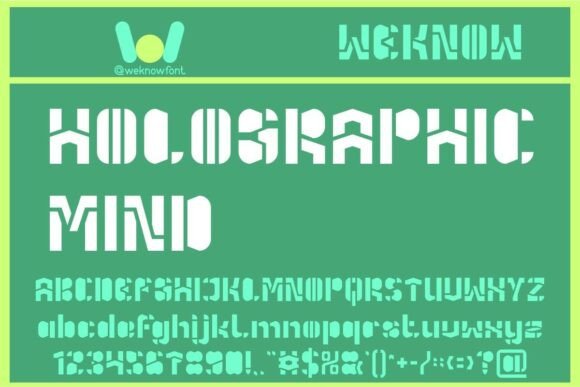
Introducing Holographic Mind Font: Elevate Your Designs to Futuristic Heights
In the realm of typography, few fonts manage to capture the essence of a futuristic universe as effectively as the Holographic Mind Font. This cutting-edge, techno-science fiction, cyberpunk-inspired typeface is designed to transport your designs to a world of innovation and sleek sophistication. With its stencil geometric style, Holographic Mind exudes a distinct elegance that is perfect for headlines, corporate branding, and creative projects that demand a touch of the extraordinary.
The Futuristic Appeal of Holographic Mind
The Holographic Mind Font is more than just a typographic choice; it’s an experience. Its futuristic design elements evoke the aesthetic of high-tech sci-fi, making it an ideal choice for projects that require a forward-thinking approach. Whether you’re working on a blockbuster movie poster, a dynamic website design, or a stylish music band’s logo, Holographic Mind can help you achieve a look that’s both modern and mesmerizing.
Versatility at Its Best
One of the standout features of the Holographic Mind Font is its versatility. This font isn’t limited to just one or two specific uses; rather, it can be seamlessly integrated into a wide range of projects. Imagine using it for:
- Empowering corporate brands with a strong, forward-thinking identity
- Creating eye-catching posters for movies, events, or product launches
- Designing innovative logos for tech startups, music bands, or fashion labels
- Adding a touch of futurism to comic books, gaming, or digital media
- Elevating social media presence with standout Instagram posts or YouTube intros
Key Features of Holographic Mind Font
So, what makes the Holographic Mind Font so unique? Here are a few key features that set it apart:
- Stencil Geometric Style: The font’s stencil geometric style gives it a clean, precise look that’s both elegant and edgy.
- Cyberpunk-Inspired: Drawing from the world of cyberpunk, Holographic Mind captures the essence of a high-tech, futuristic universe.
- Cutting-Edge Aesthetic: With its sleek lines and modern design, this font is perfect for projects that demand a cutting-edge aesthetic.
- High Versatility: Whether you’re working on digital media, print materials, or game design, Holographic Mind can adapt to any creative project.
Enhance Your Brand with Holographic Mind
In today’s competitive market, branding is everything. A well-designed font can make all the difference in how your brand is perceived by your audience. With Holographic Mind, you can instantly elevate your brand’s image and communicate a sense of innovation and forward-thinking.
Imagine your brand’s logo, advertisements, and marketing materials all featuring the Holographic Mind Font. The consistency and cohesion of your brand’s visual identity will be instantly recognizable, setting you apart from competitors and making your brand more memorable.
Applications of Holographic Mind Font
The applications of the Holographic Mind Font are endless. Here are a few ideas to get you started:
- Movie and TV Posters: Create eye-catching posters for blockbuster movies or TV shows with a futuristic or sci-fi theme.
- Website Design: Use Holographic Mind to create dynamic and engaging website headers, buttons, or other UI elements.
- Music and Gaming: Design logos, album covers, or game titles that capture the essence of a futuristic, high-tech world.
- Fashion and Beauty: Add a touch of innovation to fashion labels, beauty products, or lifestyle brands.
- Social Media: Stand out on social media platforms like Instagram, YouTube, or TikTok with bold, futuristic text.
Tips for Using Holographic Mind Font
To get the most out of the Holographic Mind Font, here are a few tips to keep in mind:
- Pair with Complementary Fonts: Combine Holographic Mind with simpler fonts to create contrast and visual interest.
- Experiment with Colors: Try different color schemes to find the perfect match for your brand or project.
- Play with Sizes: Use varying font sizes to create hierarchy and emphasis in your designs.
- Keep it Simple: Don’t overcrowd your design; let the font’s clean lines and geometric style shine through.
The Holographic Mind Font is more than just a typographic choice; it’s a gateway to a futuristic universe of creative possibilities. With its cutting-edge design, cyberpunk-inspired aesthetic, and high versatility, this font is perfect for any project that demands innovation and sophistication.
Whether you’re a designer, marketer, or simply a creative enthusiast, Holographic Mind can help you bring your ideas to life in a way that’s both visually stunning and thought-provoking. So why wait? Immerse your designs in the futuristic universe of Holographic Mind and let your creativity shine.